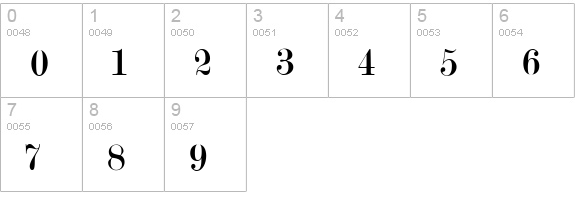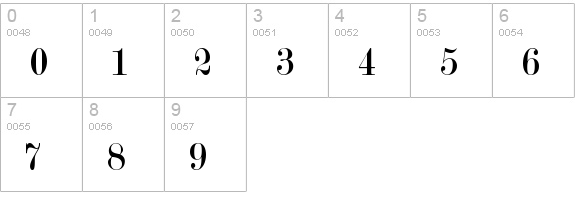
CgModernTwenty Font Details
CgModernTwenty is a sleek and stylish font that exudes a contemporary vibe, making it perfect for modern design projects. With its clean lines and sharp edges, this font is versatile and can be used for a variety of purposes, from branding to web design. The geometric shapes and bold design of CgModernTwenty make it stand out and grab attention. The best part is that CgModernTwenty is completely free to download at FontsMarket.com. This means you can add this stunning font to your collection without any cost. Whether you're a professional designer or a hobbyist looking to elevate your projects, CgModernTwenty is a fantastic choice that won't break the bank. Download it now and start creating eye-catching designs with this amazing font.